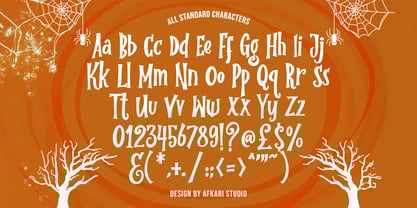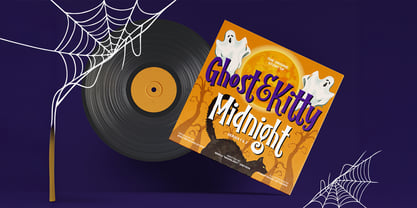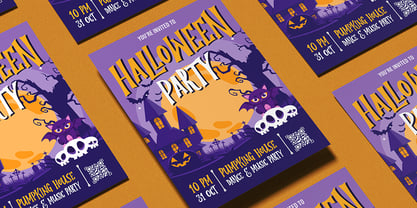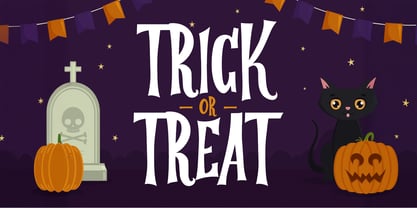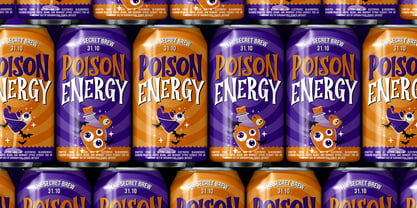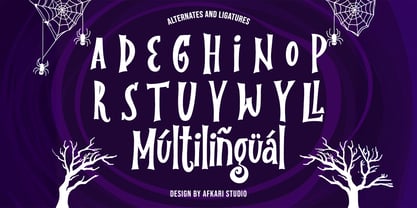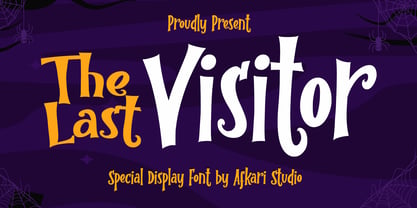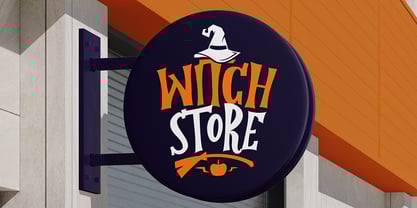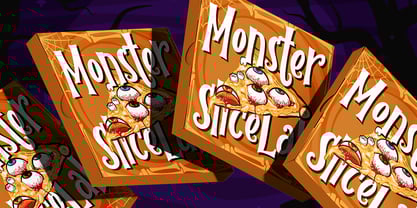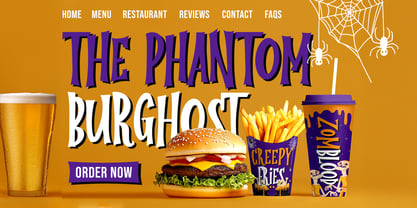
The Last Visitor
by Afkari Studio
The The Last Visitor Font Family was designed by Musthafa Kamal Emje and published by Afkari Studio. The Last Visitor contains 1 styles. More about this family
The Last Visitor is a special display serif font crafted with dramatic curves, sharp details, and an eerie touch that instantly grabs attention. Designed to stand out in bold titles and thematic graphics, this font blends classic serif elegance with a mysterious, cinematic atmosphere—perfect for projects that need a strong, unforgettable visual identity. With its striking letterforms and unique serif accents, The Last Visitor brings sophistication and suspense into one cohesive style. Whether you’re creating horror-themed content, editorial headlines, branding, posters, or book covers, this font adds a powerful presence that feels both refined and haunting. What’s Included; - Uppercase, Lowercase, Number, and Punctuation - Special Alternates and ligatures - Works on PC & Mac, Simple installations - Accessible in Adobe Illustrator, Adobe Photoshop, Adobe InDesign, and even work on Microsoft Word - PUA Encoded Characters – Fully accessible without additional design software. - Mültîlíñgúãl Sùppört for; ä ö ü Ä Ö Ü ß ¿ ¡ What Makes The Last Visitor Special? - Unique Display Serif Style – Elegant yet intense, perfect for dramatic typography. - Sharp, expressive details – Adds mood, mystery, and visual tension. - High-impact letterforms – Designed for standout headlines and large titles. - Cinematic feel – Ideal for trailers, movie posters, and storytelling visuals. - Versatile tone – Works for dark, gothic, vintage, fantasy, or modern editorial themes. With The Last Visitor, every word becomes a statement—bold, atmospheric, and beautifully crafted. This serif display font is the perfect choice for designers who want typography that feels premium, expressive, and full of character.
Designers: Musthafa Kamal Emje
Foundry: Afkari Studio